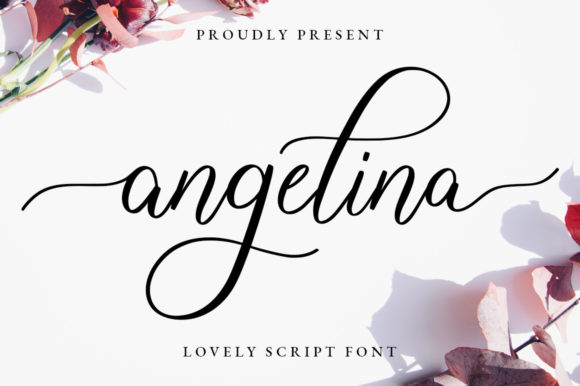
The Enchanting Angelina Font: A Designer’s Dream Come True
I’ll never forget the time I was working on a project for a client’s wedding invitation. I had a clear vision of what I wanted to achieve – a romantic, whimsical feel that would set the tone for the big day. But, as I began to sift through font after font, I realized that finding the perfect one was proving to be a challenge. That was until I stumbled upon the Angelina font. 💕
This enchanting handwritten font has been a game-changer for me, and I’m excited to share my experience with you. From greeting cards to headlines, Angelina’s versatility knows no bounds. In this article, we’ll dive into the world of Angelina, exploring its features, and how to make the most of it in your designs.
• 💫 Romantic and whimsical feel that’s perfect for wedding invitations, greeting cards, and more
• ✅ PUA encoded for easy access to beautiful glyphs and swashes
• 🎨 Highly versatile and adaptable to various design projects
• 👍 Well-suited for both digital and print designs
• ⚠️ May require some getting used to for those familiar with more traditional fonts
• ⚠️ Some users may find the font a tad too ornate for certain projects
The Story Behind Angelina: A Designer Inspiration
While the true story behind Angelina’s creation may be a mystery, it’s easy to imagine a designer with a passion for calligraphy and handwriting sitting down to craft a font that would capture the essence of romance and whimsy. With Angelina, it’s clear that the designer aimed to create a font that would be both elegant and approachable, making it perfect for a wide range of design projects.